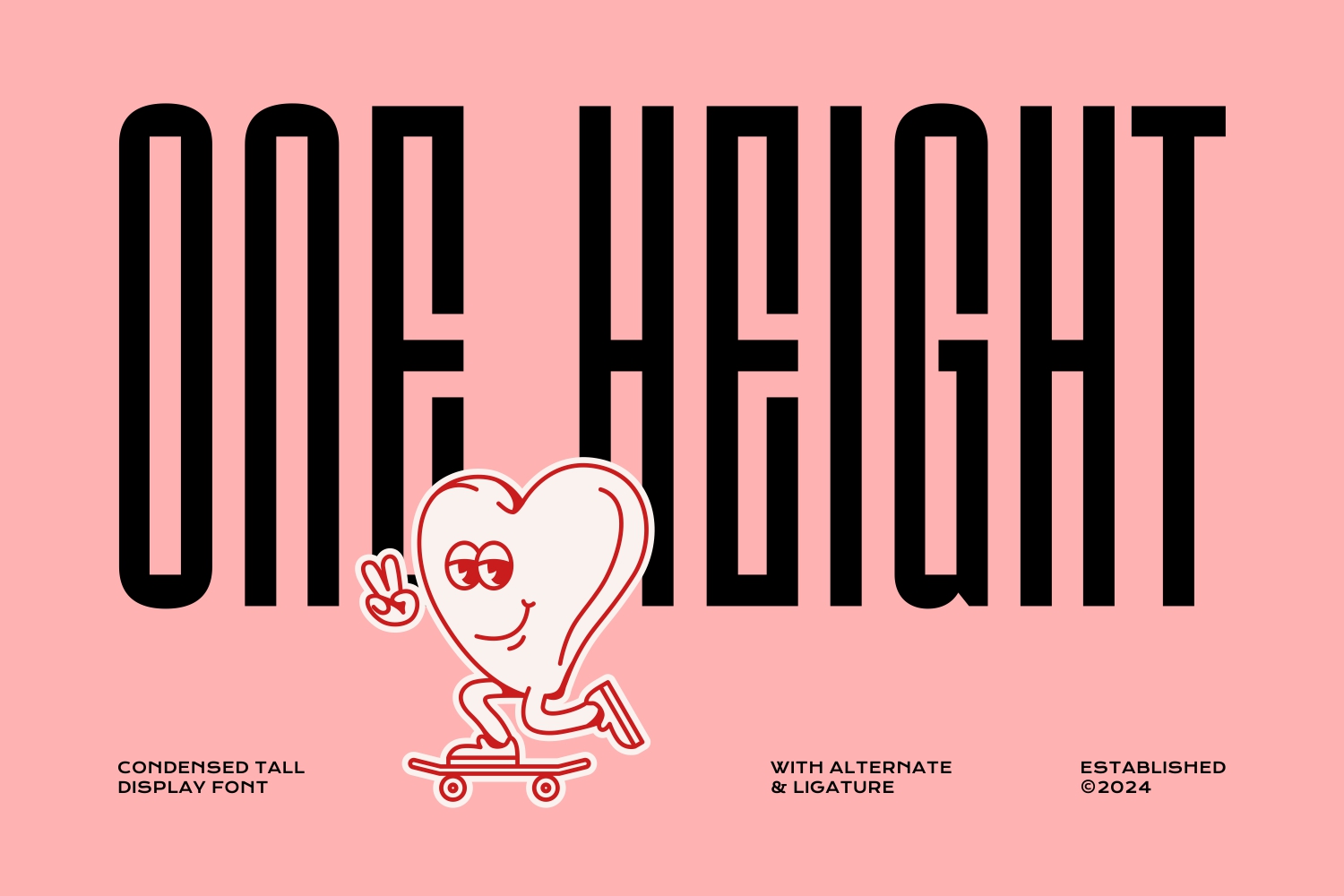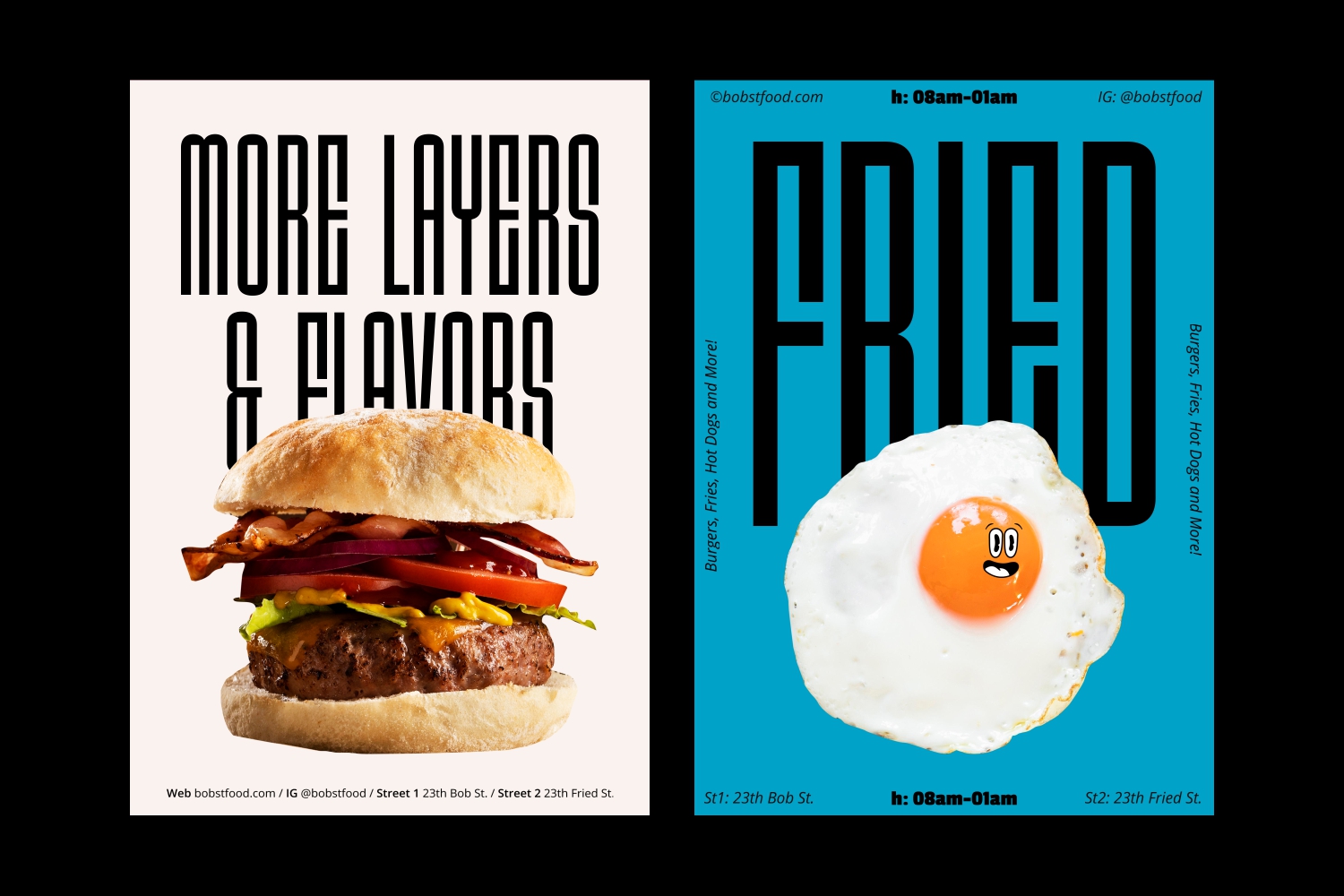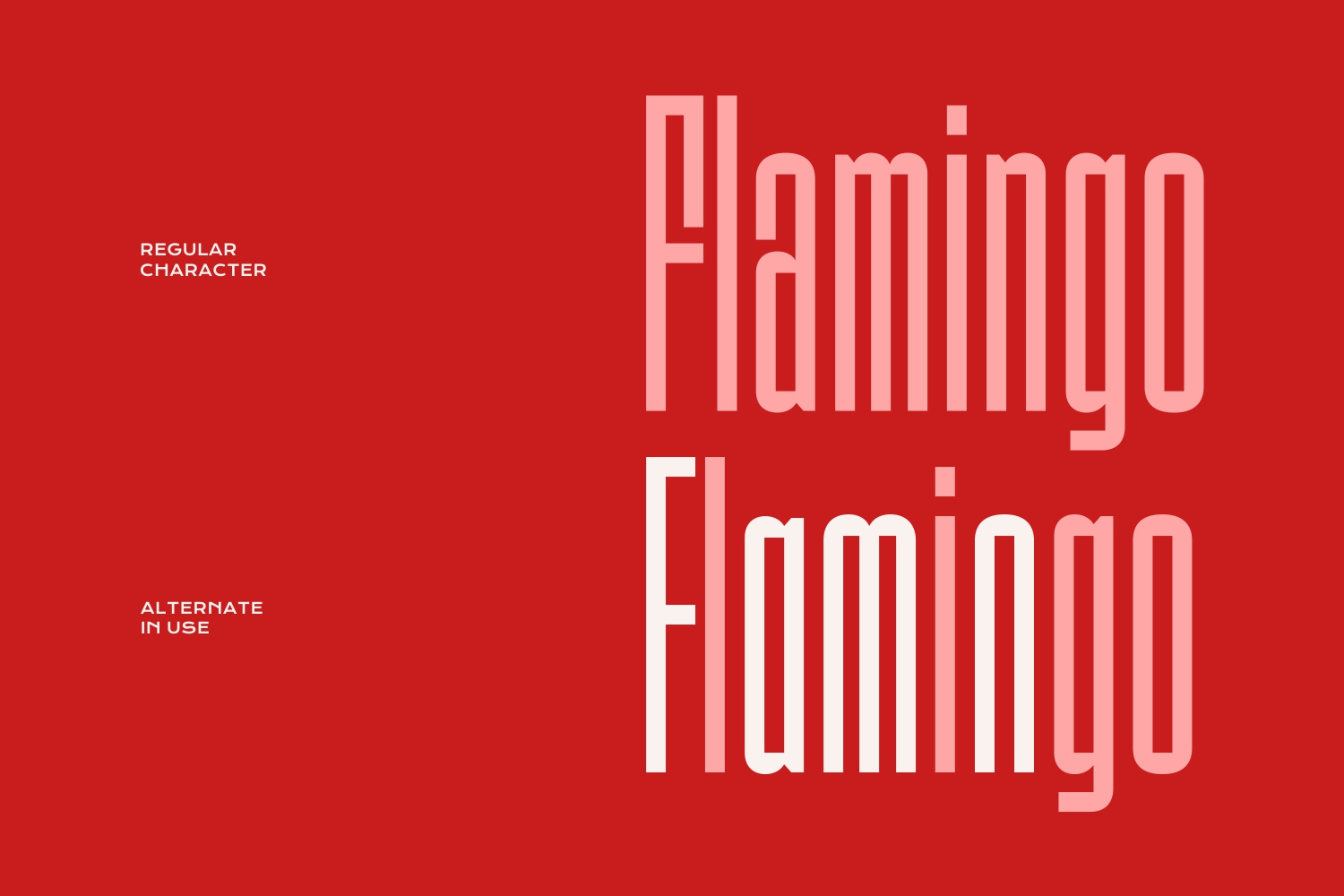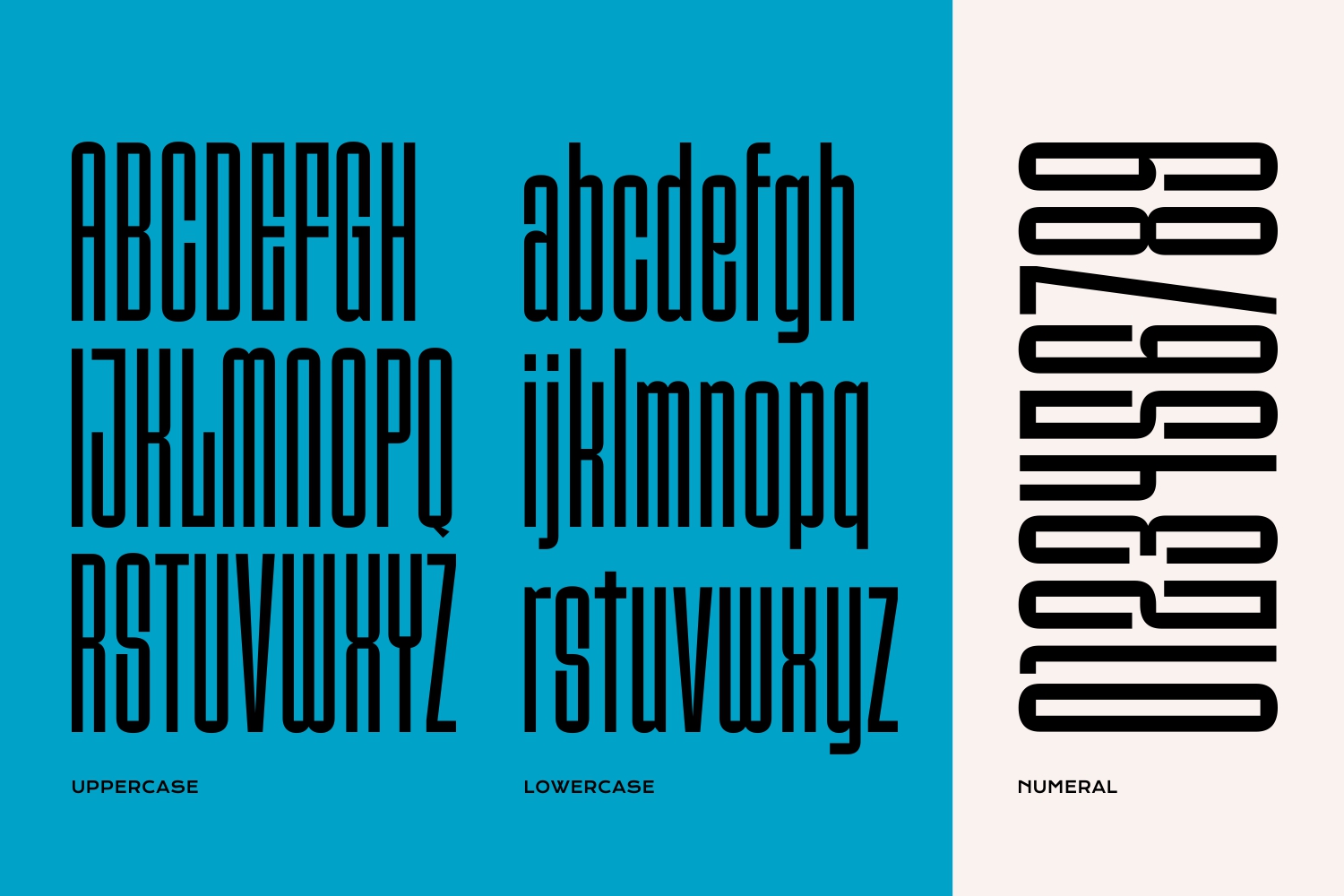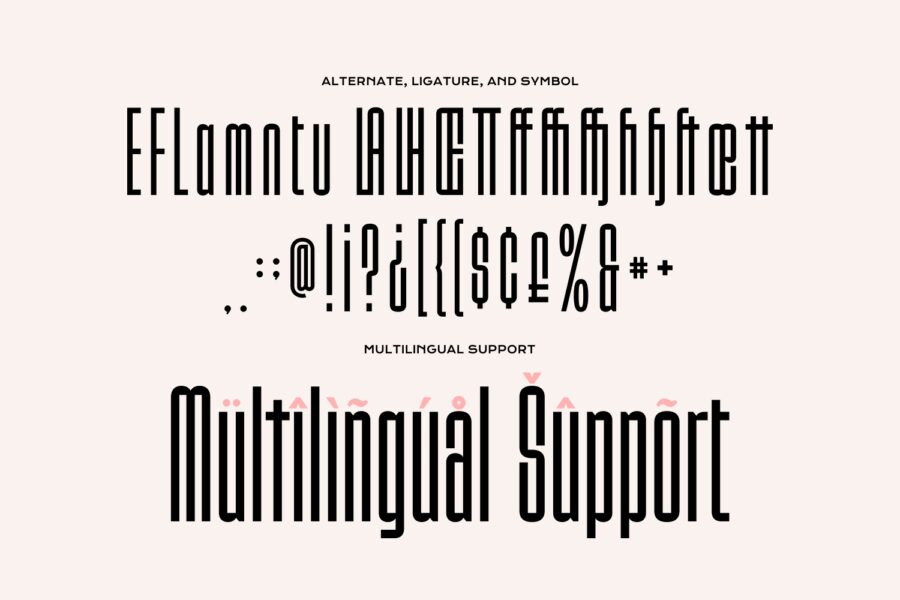
One Height is a tall, ultra-condensed display font that commands attention with its dramatic vertical proportions. Perfectly suited for headlines, posters, packaging, and streetwear branding, One Height blends minimalism with bold visual rhythm. The font features clean edges, modern character construction, and comes packed with stylish alternates and ligatures for added versatility in creative layouts.
This typeface includes uppercase, lowercase, numerals, punctuation, multilingual support, and expressive alternates to provide maximum typographic impact. Whether you’re designing eye-catching editorial spreads or playful food campaigns, One Height delivers a unique voice that elevates any bold visual storytelling.
One Height